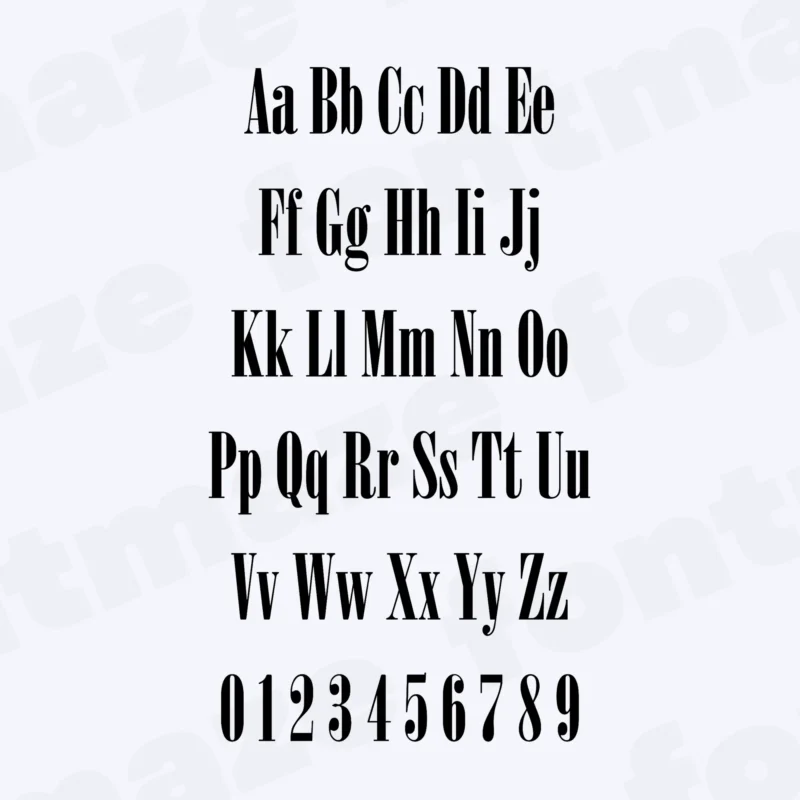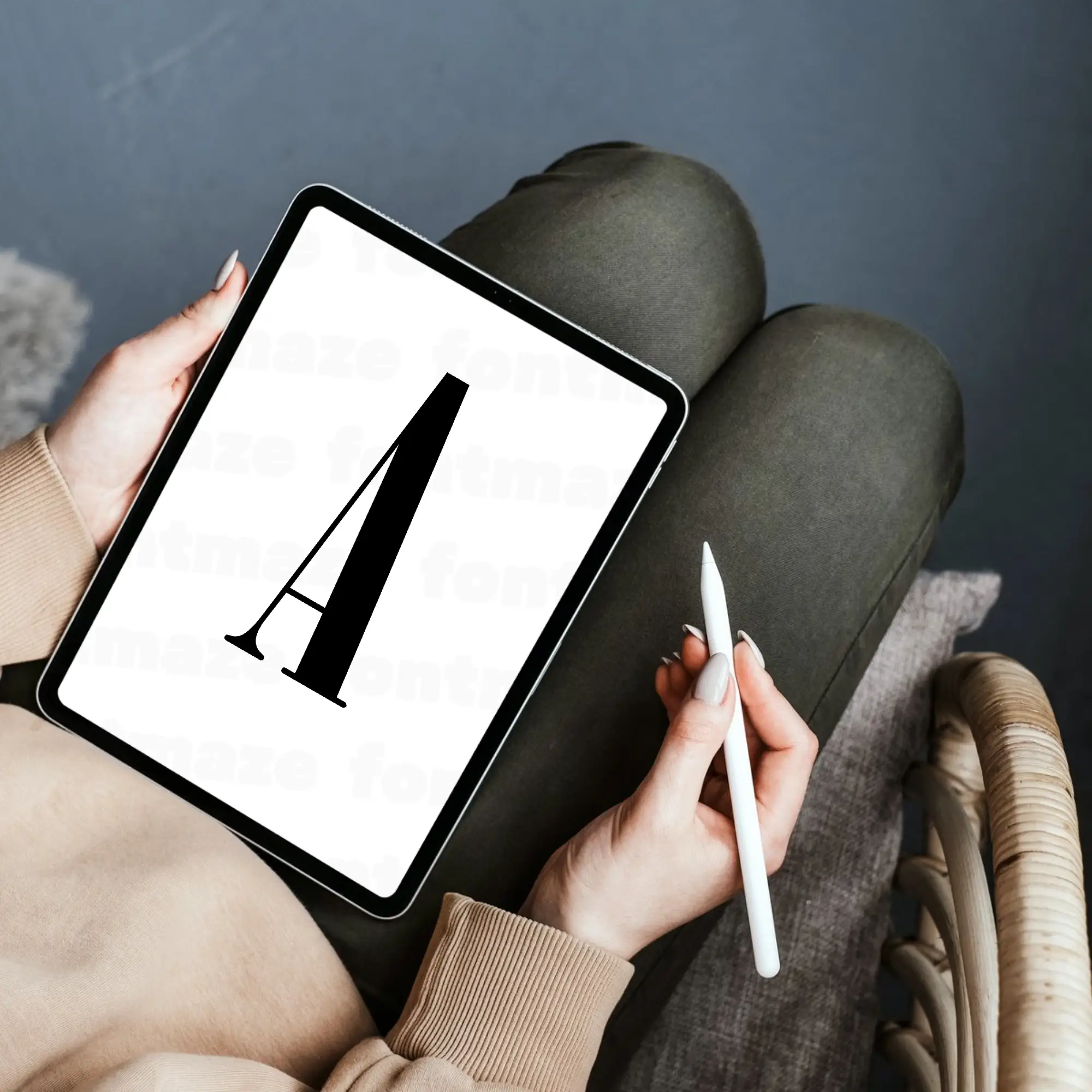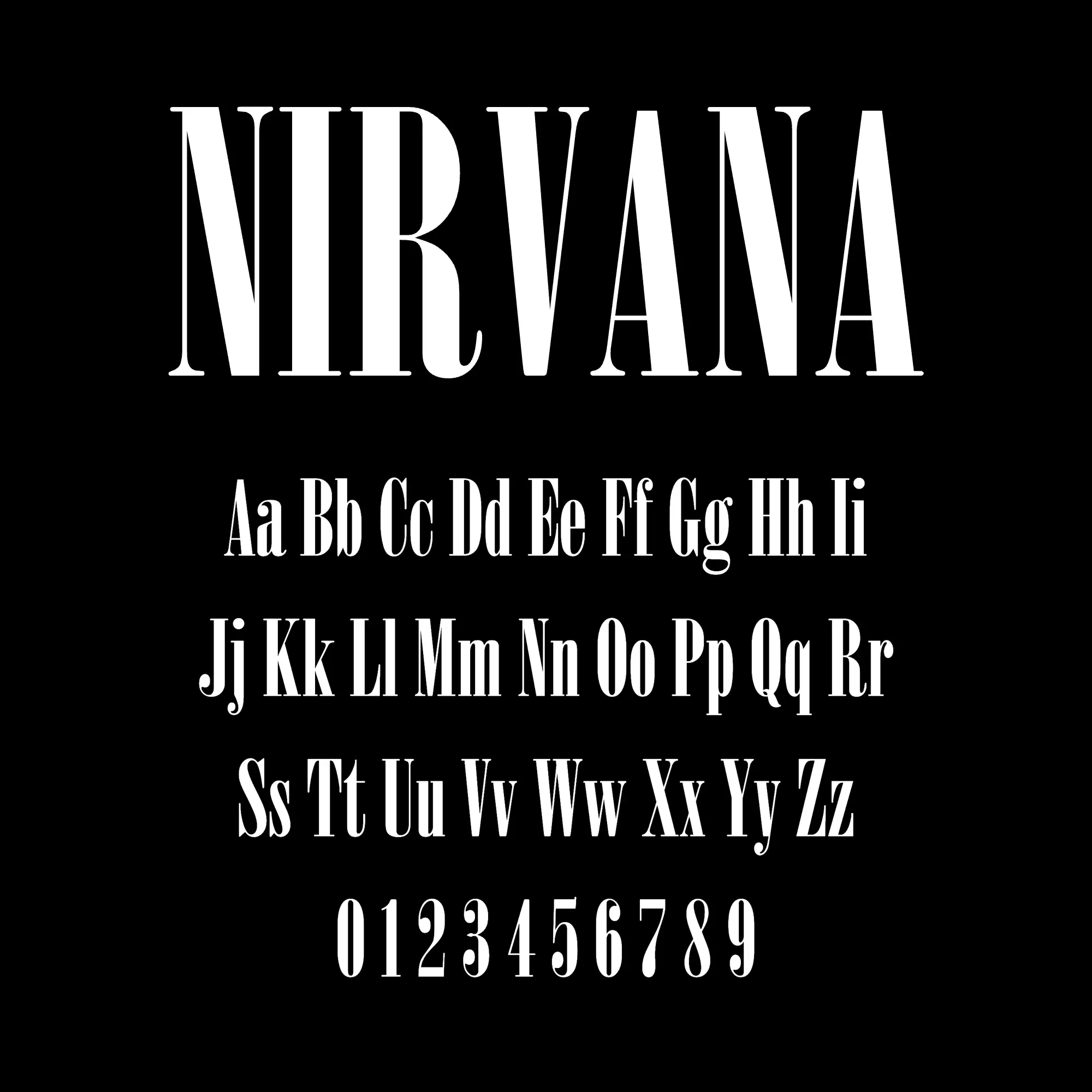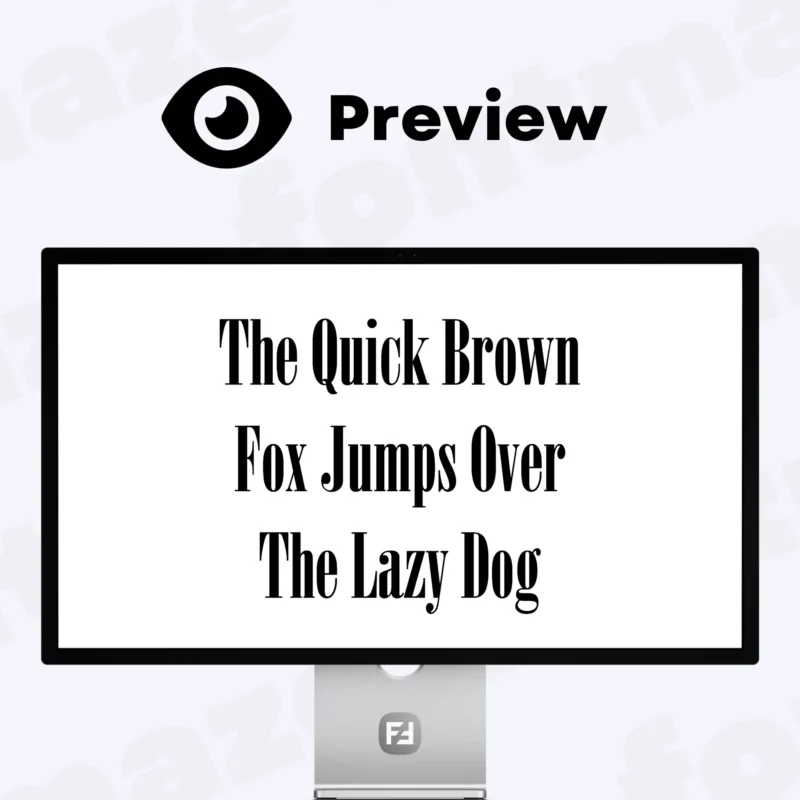
Our Nirvana Font, a Kurt Cobain Style Typeface
Make your next project stand out with our Nirvana font – a flexible and stylish typeface made for everyone.
Handcrafted in our studio with care and attention to detail, the Nirvana font brings a unique, personal touch to your designs.